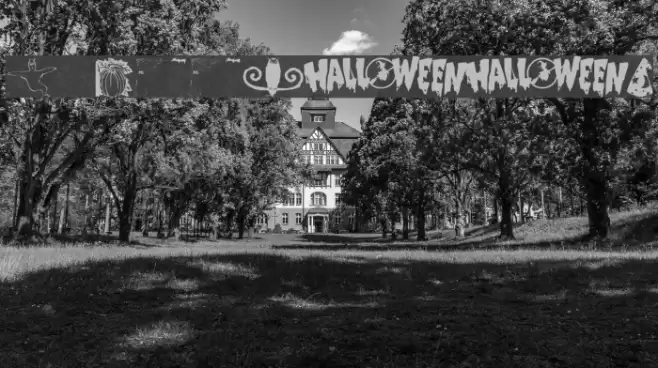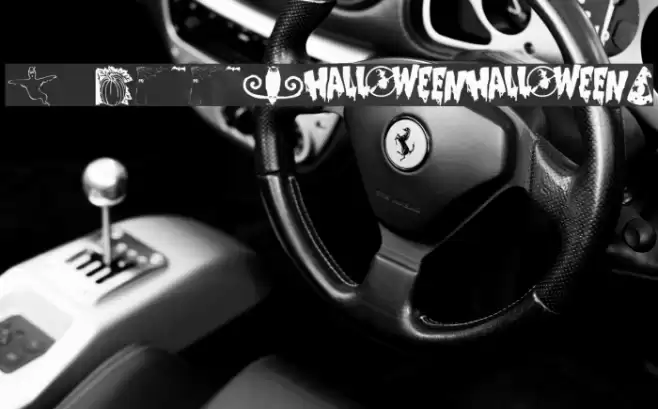
KR Booville Font
KR Booville Description
This decorative font is themed around Halloween, featuring a variety of spooky and playful elements such as witches' hats, pumpkins, tombstones, spiders, bats, and ghosts. The characters are highly stylized, with intricate details that evoke a sense of fun and eeriness. The font captures the essence of Halloween with its bold and whimsical design, making it perfect for seasonal projects. Each character is unique, incorporating elements like cobwebs and jack-o'-lanterns, adding to the festive atmosphere. The overall style is playful yet slightly ominous, ideal for capturing the spirit of Halloween.
A Halloween-themed decorative font with playful and spooky elements from Uncategorized fonts.
- Proposed Projects: Ideal for Halloween invitations, party decorations, themed posters, and festive merchandise.
- Use Case: Headlines, Posters, Invitations